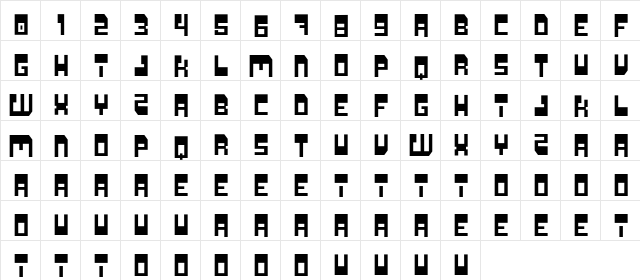
Galaxia Regular
Design Context for Galaxia Typeface
Galaxia is a composed and adaptable typeface that performs quietly and consistently across a wide range of design contexts.